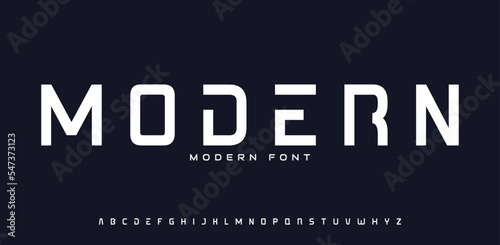
Tech font typography alphabet letters. Future logo typo. Minimal urban font letter set. Luxury vector typeface for a company. Modern gaming fonts for logo design.